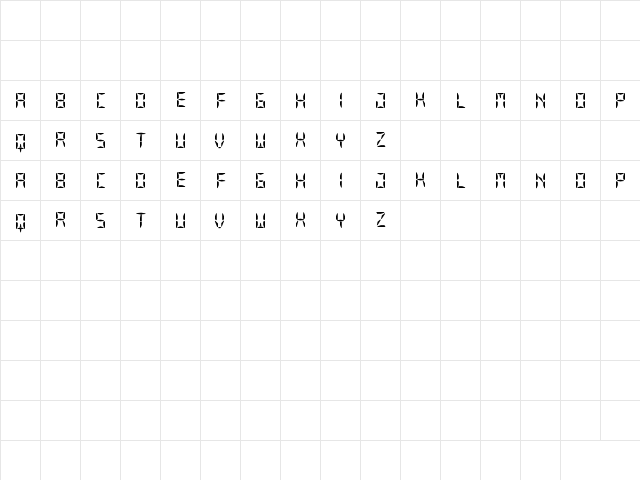
Our Display St Regular
Design Context for Our Display St Typeface
Our Display St is built around its visual character rather than neutral utility — its distinctive forms are designed to make an impression at display sizes.
Font Pairing: Pair with a clean neutral sans-serif for body copy to let Our Display St's character lead without overwhelming the composition.
Pro Tip: Use Our Display St exclusively at display sizes — it was designed to be seen, not read at length. Let a neutral companion handle body copy.